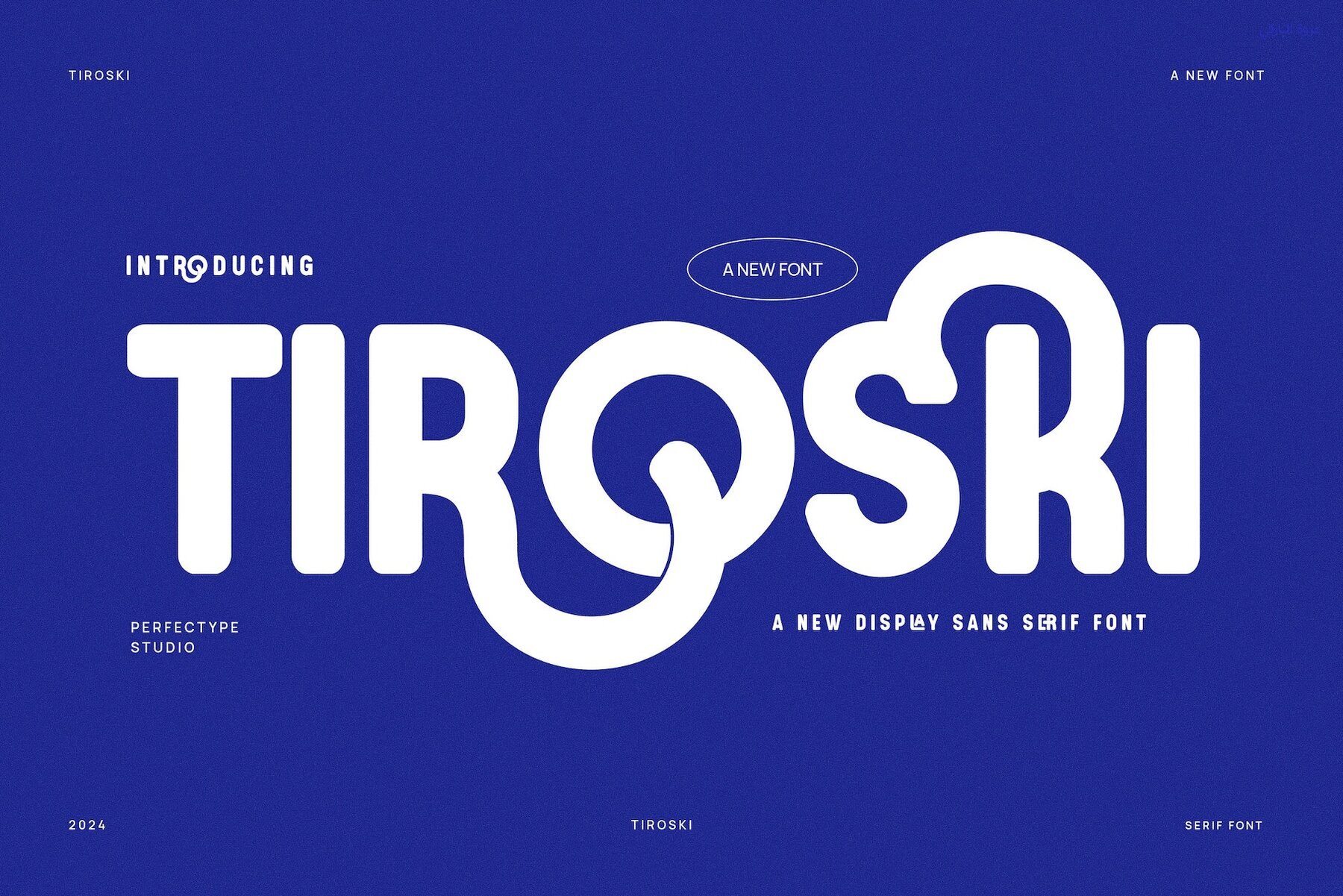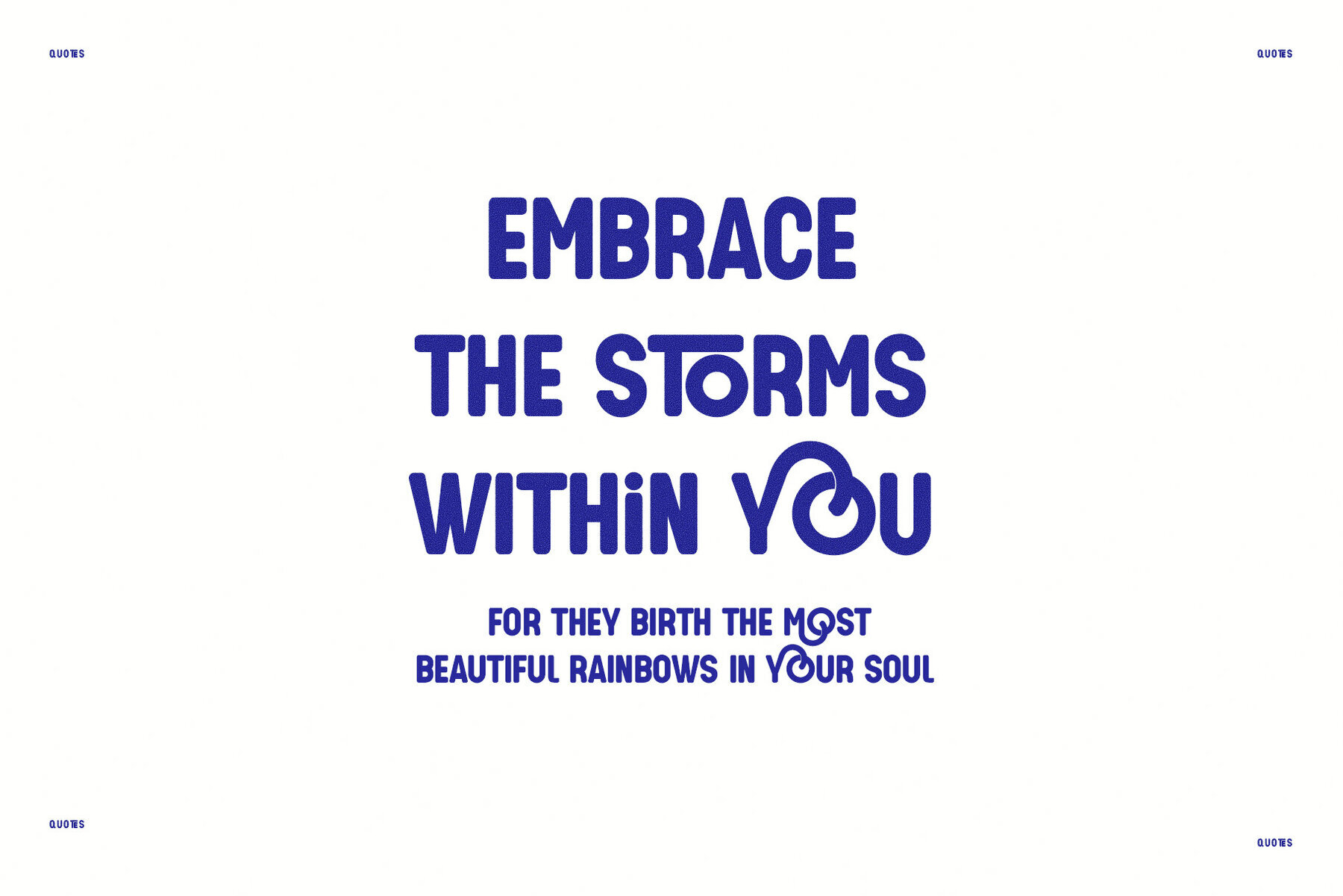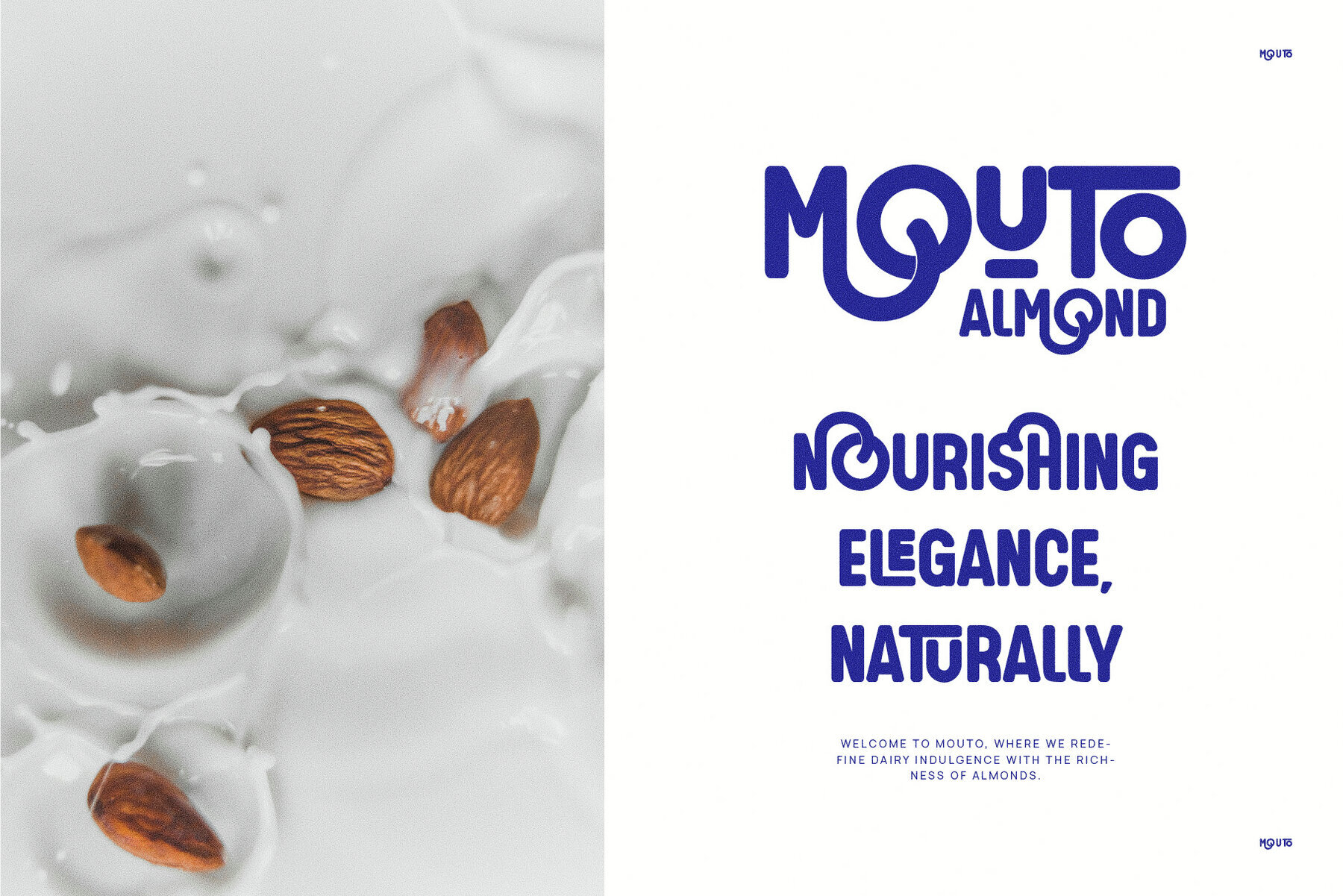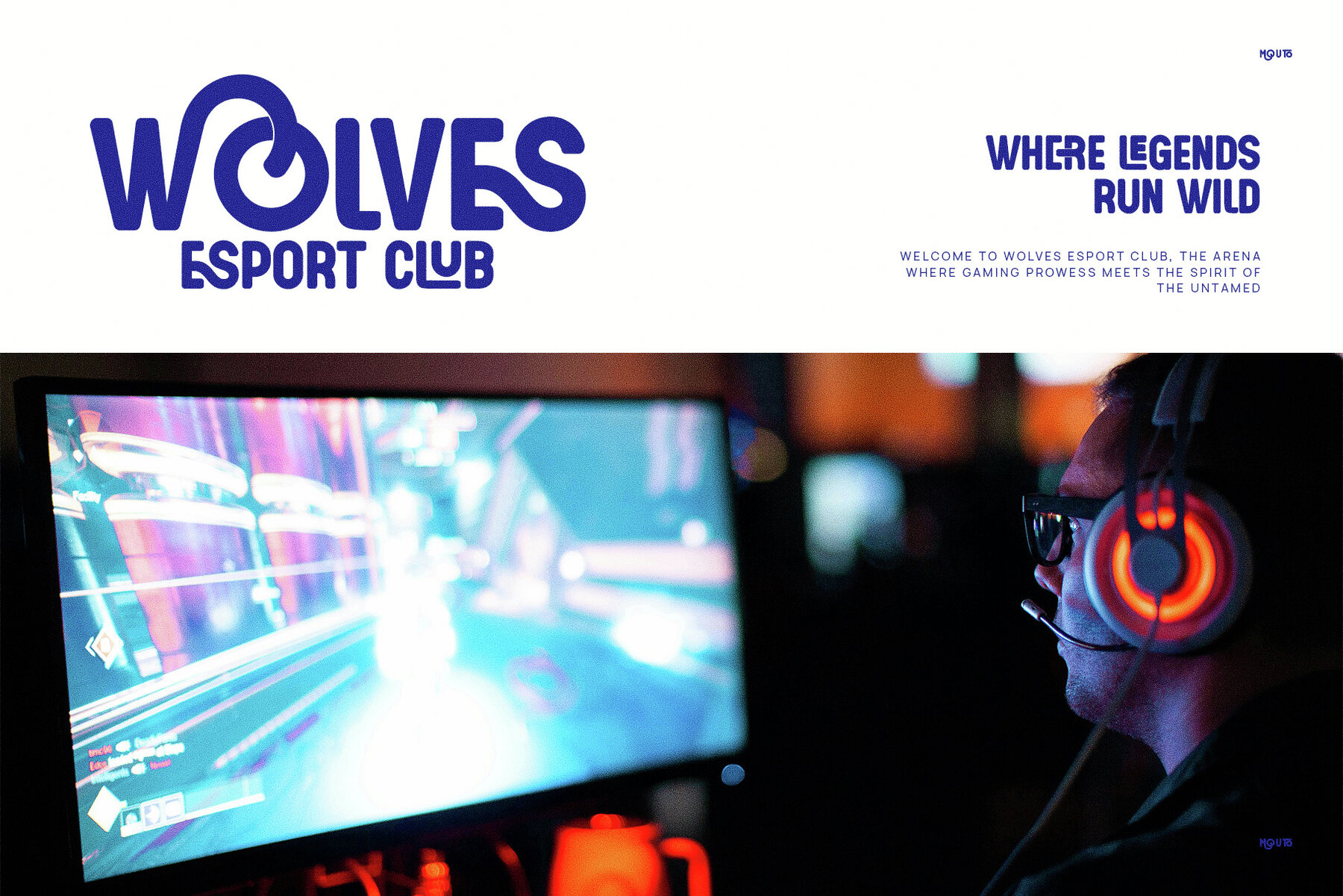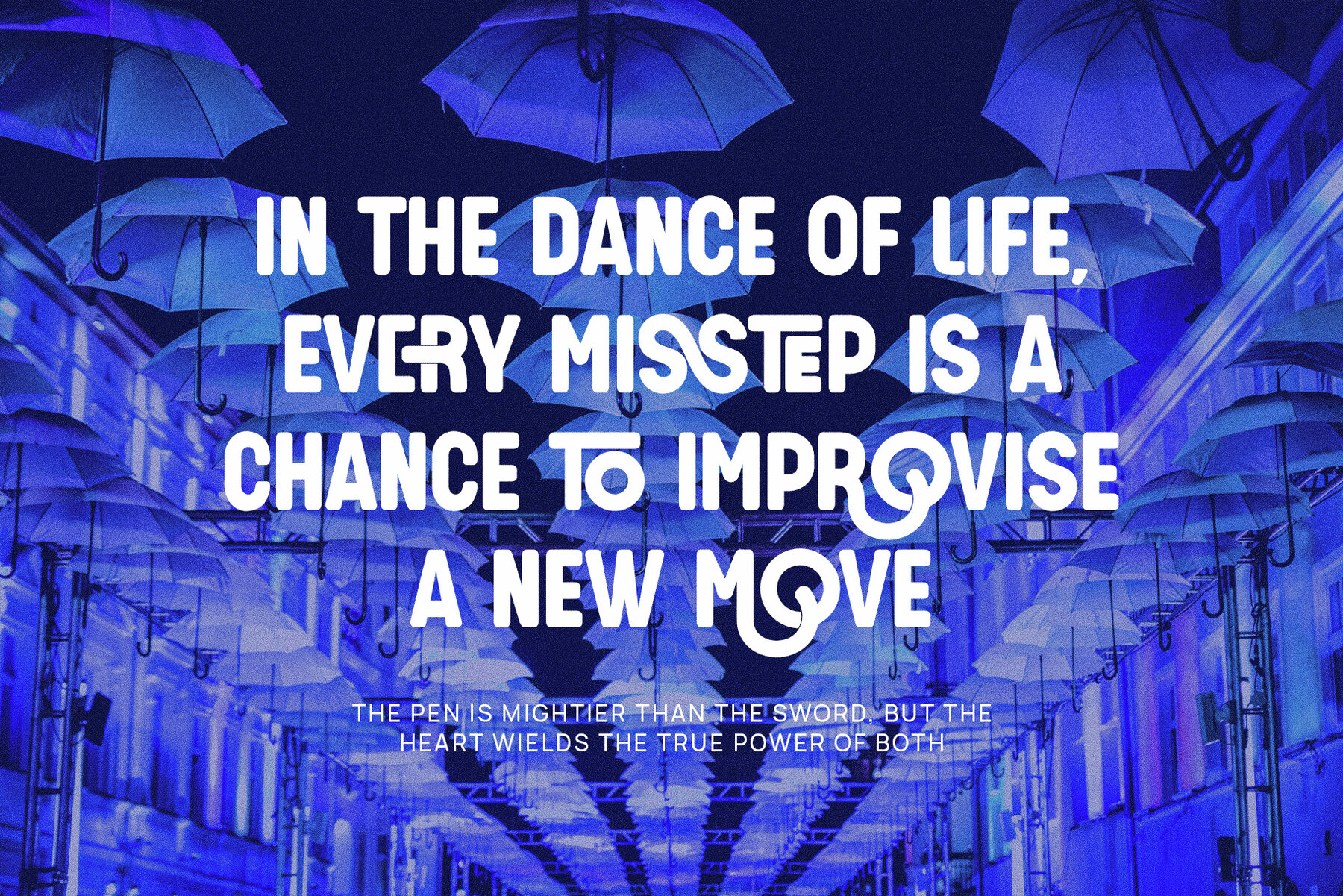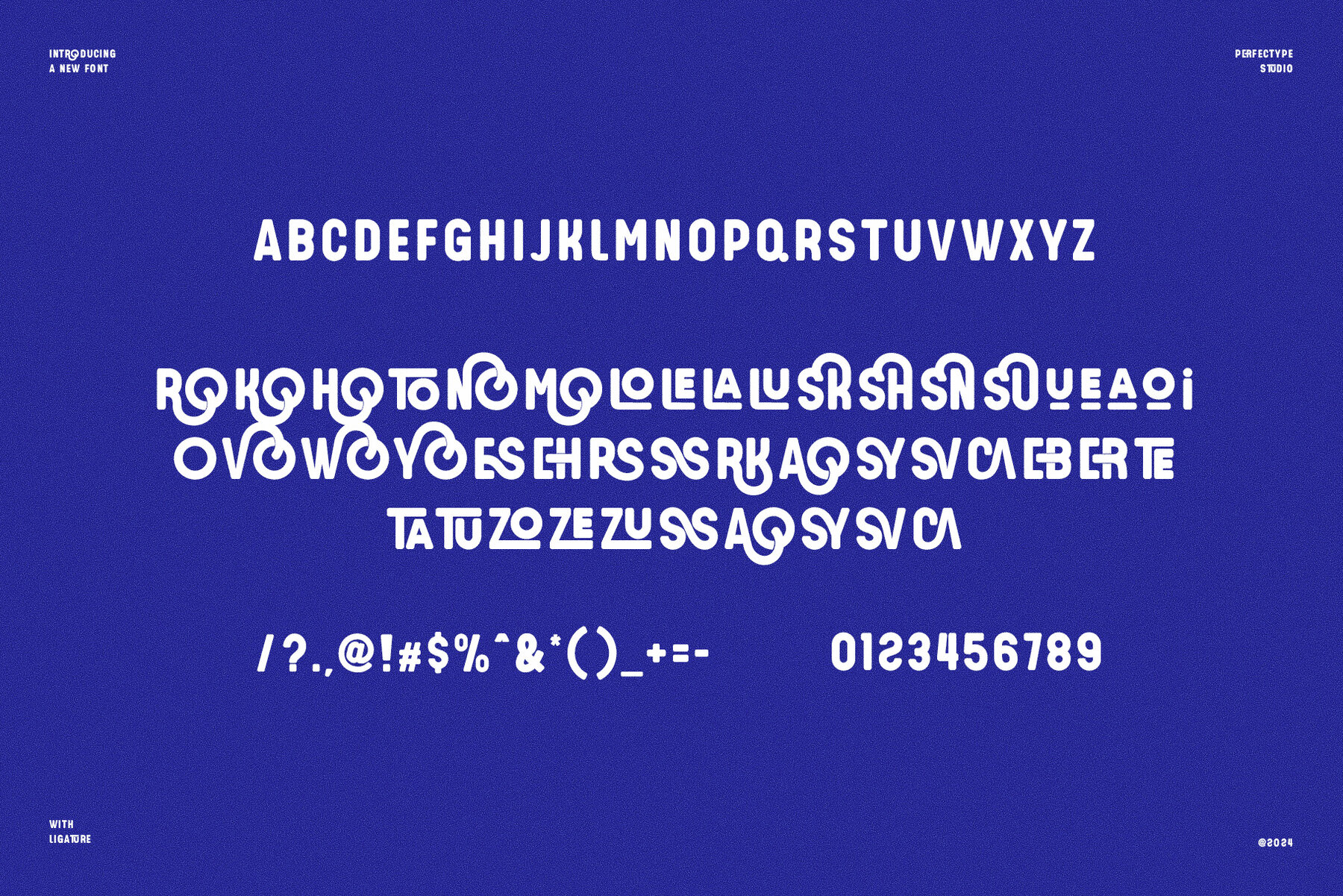
Tiroski Font
Tiroski
Tiroski is a sophisticated typeface that combines modernity with versatility. Characterized by its clean lines and geometric design, it offers a refreshing update to the classic sans serif style. Tiroski's precise proportions and sharp aesthetic make it highly effective for a range of applications, from print to digital. It's particularly suitable for crafting distinct typography in logos, branding initiatives, websites, and advertisements.
The font is enriched with elegant ligatures, enabling designers to achieve a smooth, flowing typographic feel. These features add a refined touch that enhances corporate identities, film posters, and high-end product designs. Whether for business branding or editorial design, the cohesive look of Tiroski speaks to quality and meticulous attention to detail. Its adaptable nature ensures clarity and style across various formats, maintaining legibility in both large headlines and smaller text settings.
Perfect for digital media, promotional materials, and modern corporate projects, Tiroski Ligature Sans Serif Font adds a contemporary edge to any design undertaking. Its blend of beautiful ligatures and precision makes it an ideal choice for designers aiming to leave a memorable mark in the dynamic landscape of modern branding.